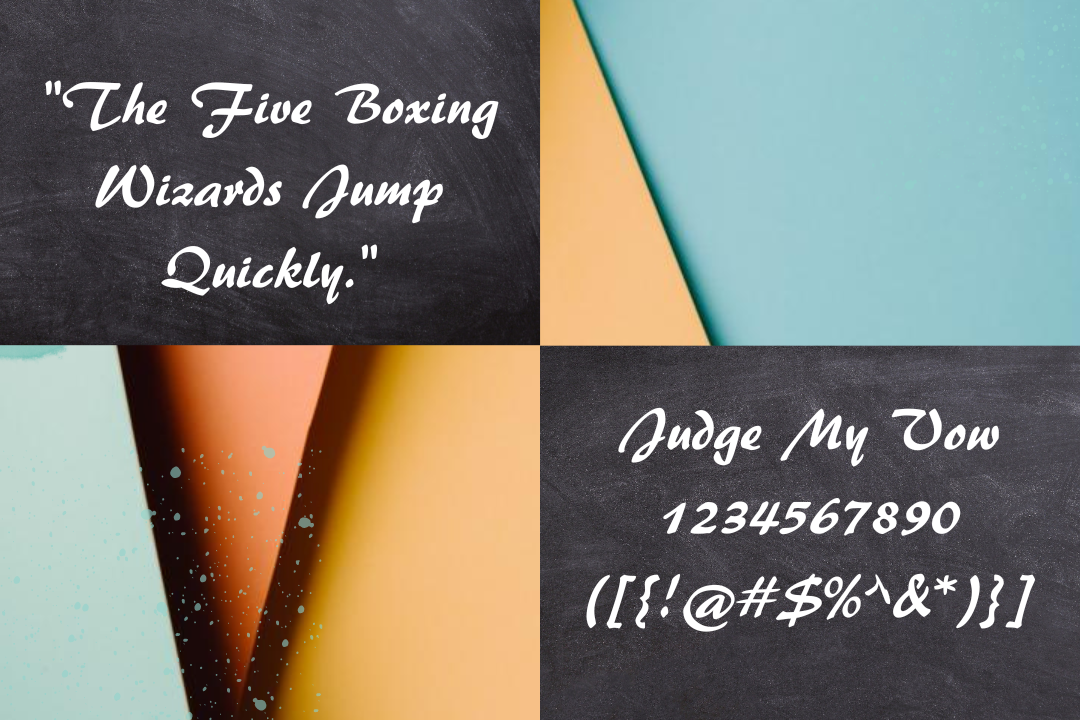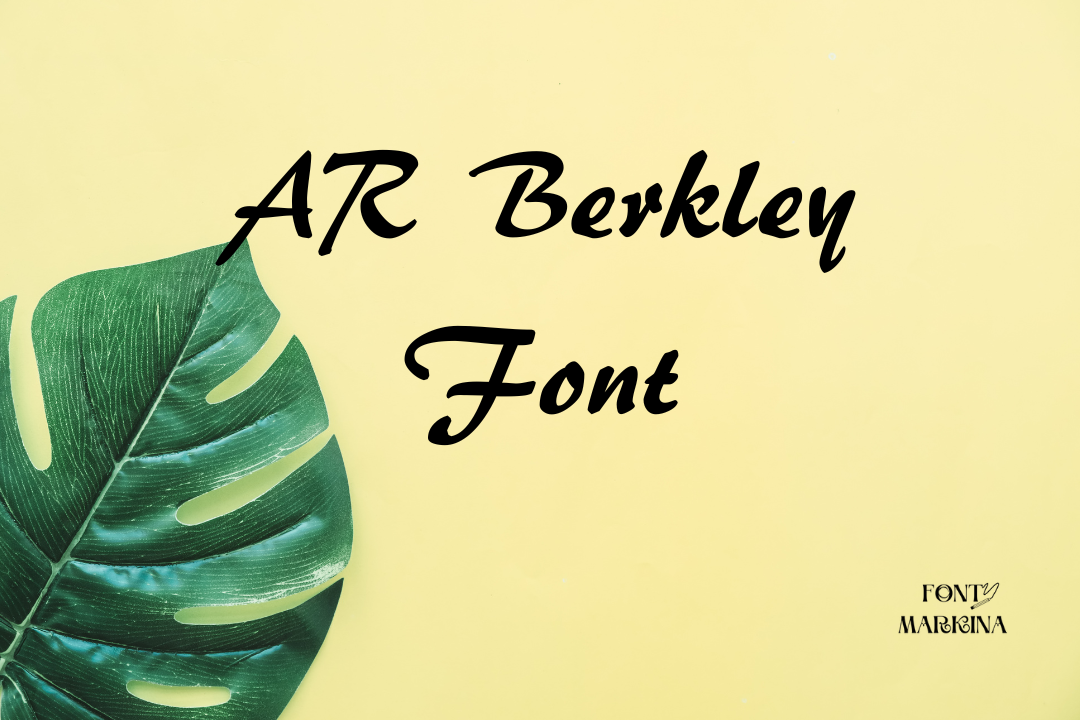
Introducing to you AR Berkley Font which has a lot of features. This family falls in the category of the script family of fonts and is difficult to read. This family writing style is modern because it is a script font. Arphic Technology Co Foundry is behind its creation.
In the year 2005, this texture was released and includes various styles. Its bold style is very familiar. The irregular-shaped corners are very stylish. Its similar Ballerina font is well-suitable for a vast variety of projects. Both textures have the same designs, looks, styles, and characters.
The most common feature of the AR Berkley Font is its generator tool which is utilized for all of your graphic design projects and plans. Use it in your workspace and enjoy its flawless results.
Usage of AR Berkley Font
Nowadays, the use of this texture is familiar all across the globe. All great companies and higher brands use this family for their product designs and styles. This remarkable font is perfect for body text, and even long texts. You can also utilize this family for their promotional materials.
Because of its classic format, this family is well suitable for display projects and logo designs. Even for road signs, this typography is mostly used. In offices and business sectors, it is useful for the maintenance of reports and records about different items.
You can also use this texture by pairing it with Amsterdam font which is very traditional. You can use it for brochure layout as your clients wish. It is perfect for commercial projects.
| Designer | Arphic Technology Co |
| Style | Script |
What type of font is AR Berkley Font?
This texture lies in the category of the script family of fonts. It includes unique collections of styles.
Where we can use AR Berkley?
According to your own wish, you can use this texture for all of your fantastic plans.
Who is the manufacturer of AR Berkley Font?
A very famous foundry named Arphic Technology Co Foundry took the charge of designing it.
What is the generator tool for the AR Berkley typeface?
This texture introduces a very fantastic tool that is very helpful in the case of graphic design.